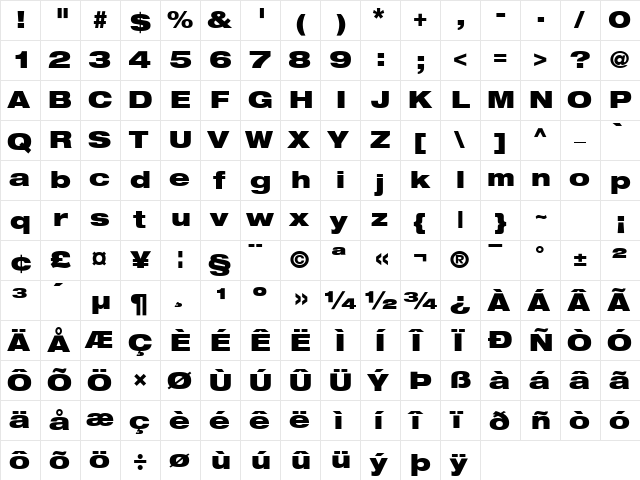
Context Reprise BlackExp SSi Bold
Design Context for Context Reprise BlackExp SSi Typeface
Context Reprise BlackExp SSi is a composed and adaptable typeface that performs quietly and consistently across a wide range of design contexts. Its bold stroke weight gives it real presence on the page.